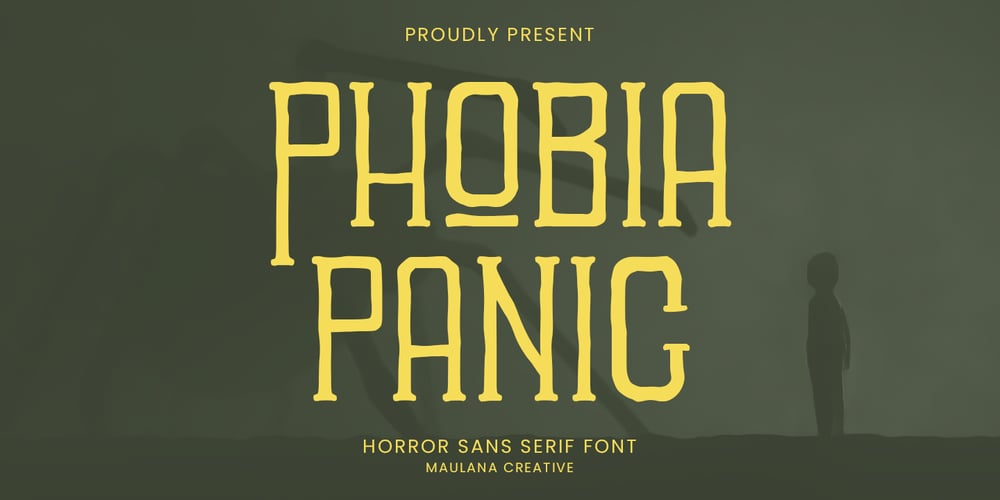
MC Phobia Panic Font Family was designed by Gilang Maulana and published by Maulana Creative. MC Phobia Panic contains 1 styles and family package options. Phobia Panic horror sans serif font. Bold stroke, fun character with a bit of ligatures and alternates. To give you an extra creative work. Phobia Panic horror sans serif font support multilingual more than 100+ language. This font is good for logo design, Social media, Movie Titles, Books Titles, a short text even a long text letter and good for your secondary text font with script or serif. Make a stunning work with Phobia Panic horror sans serif font.Cheers,Maulana Creative